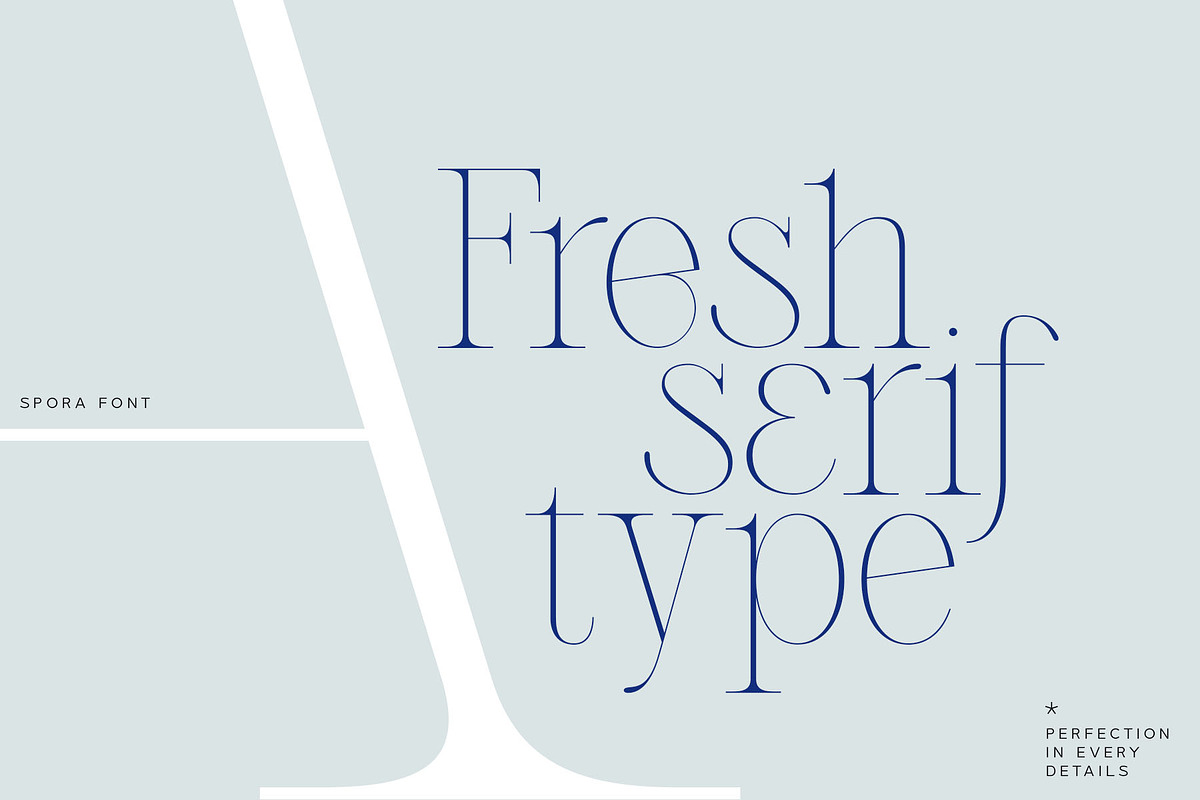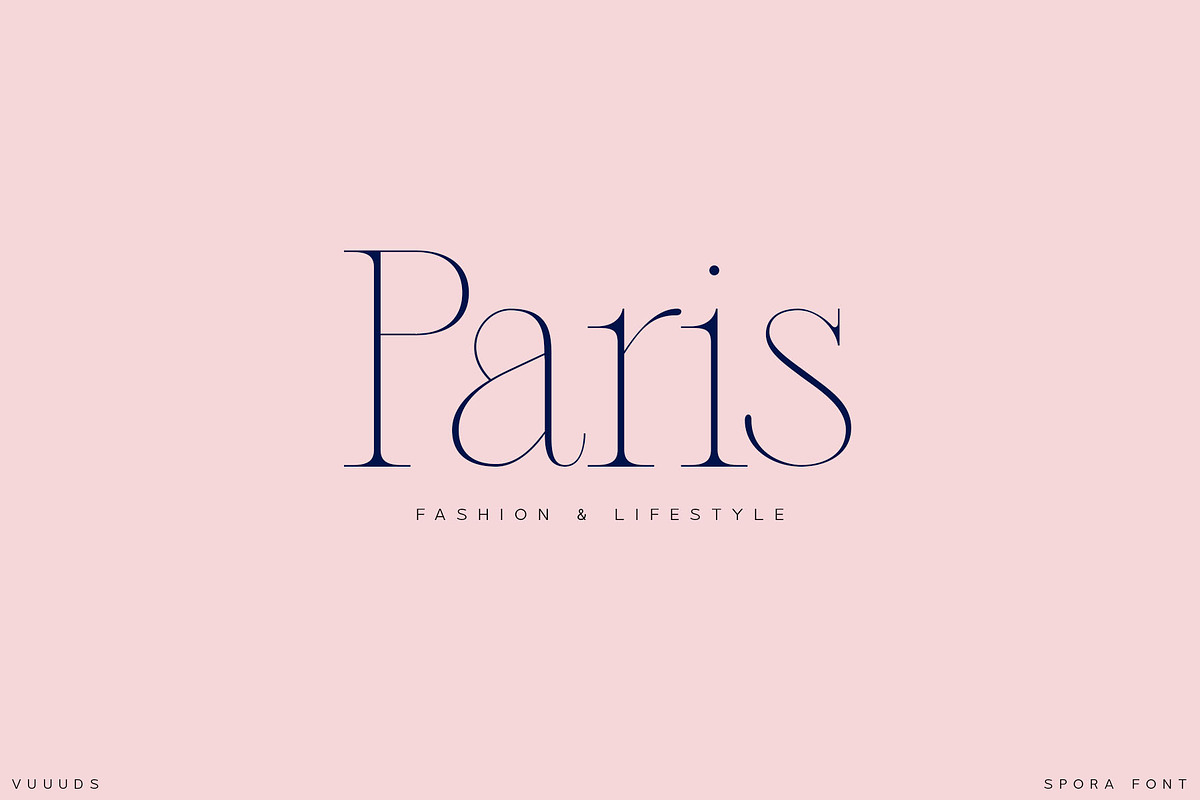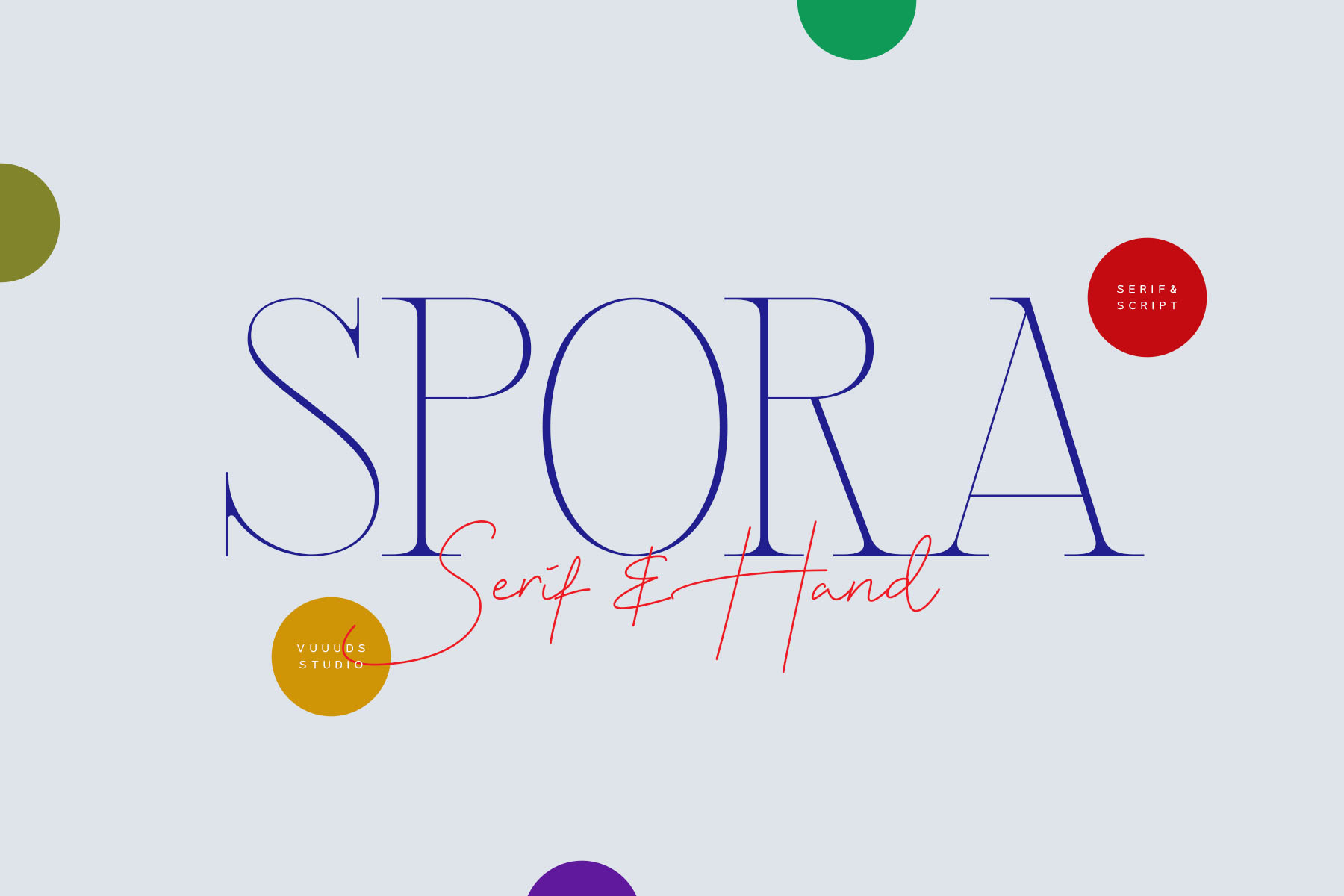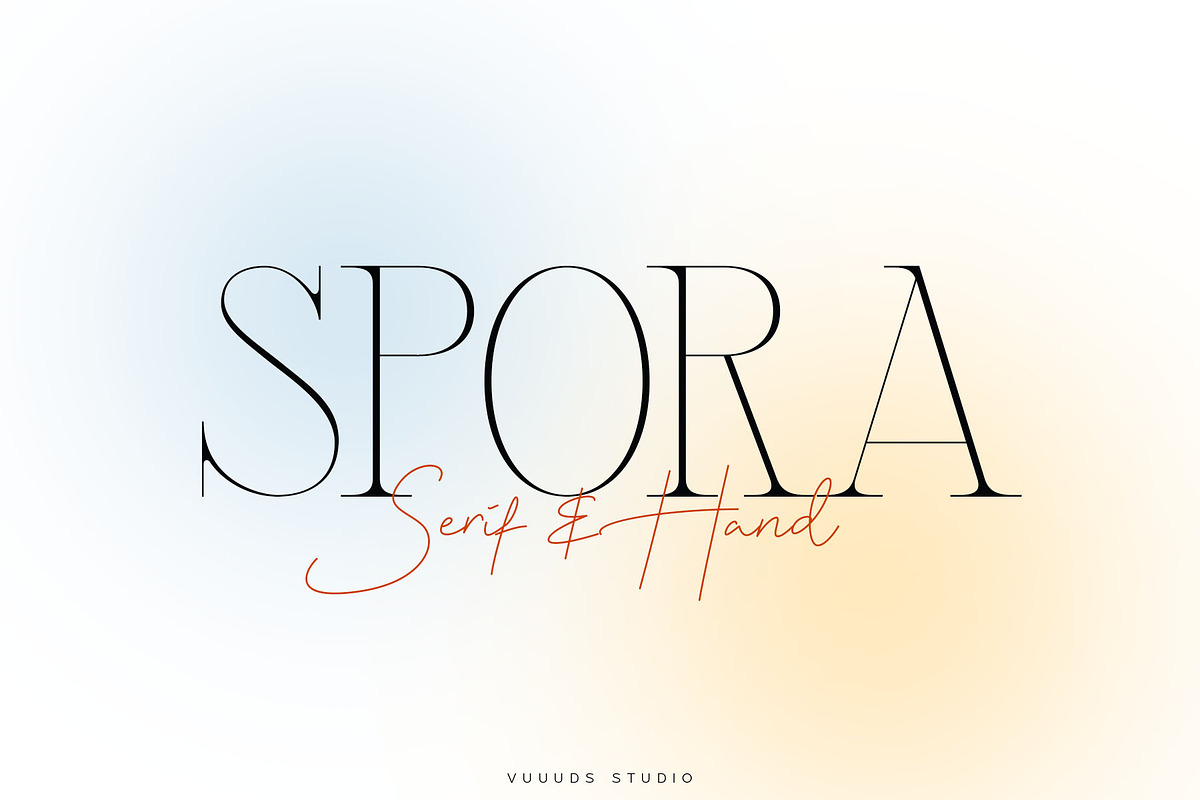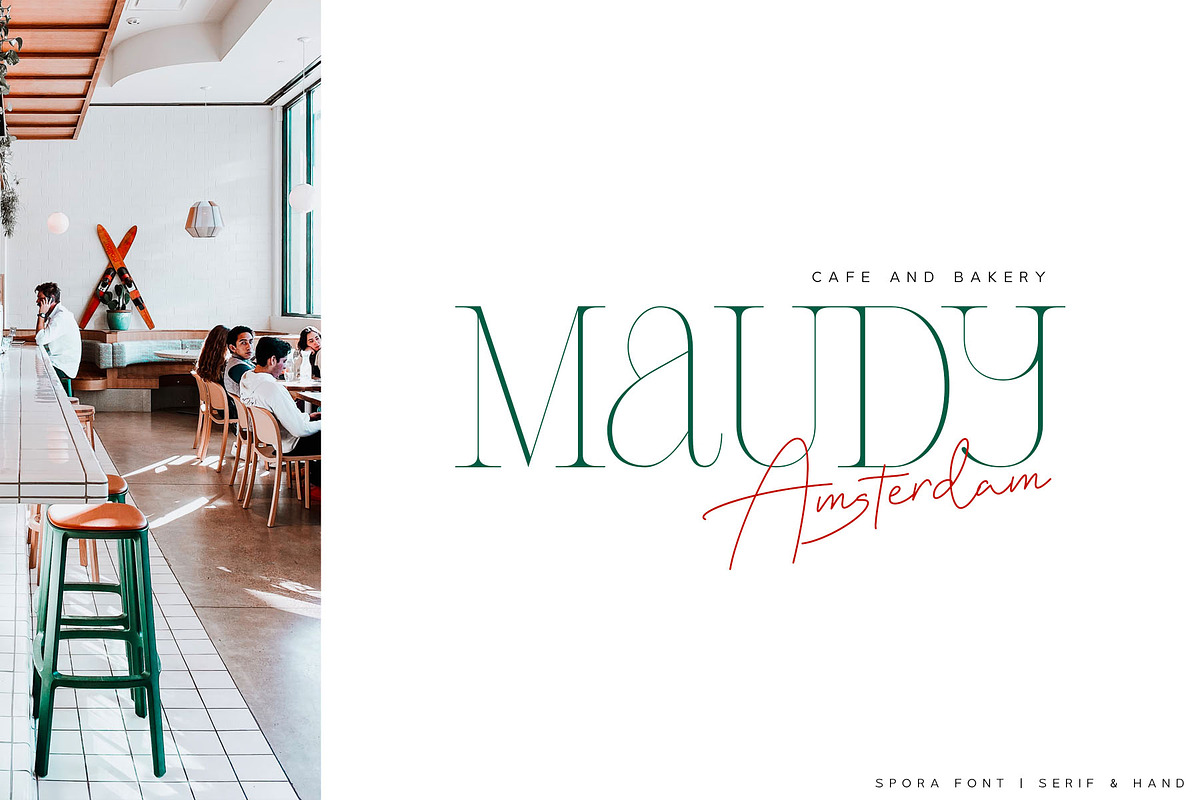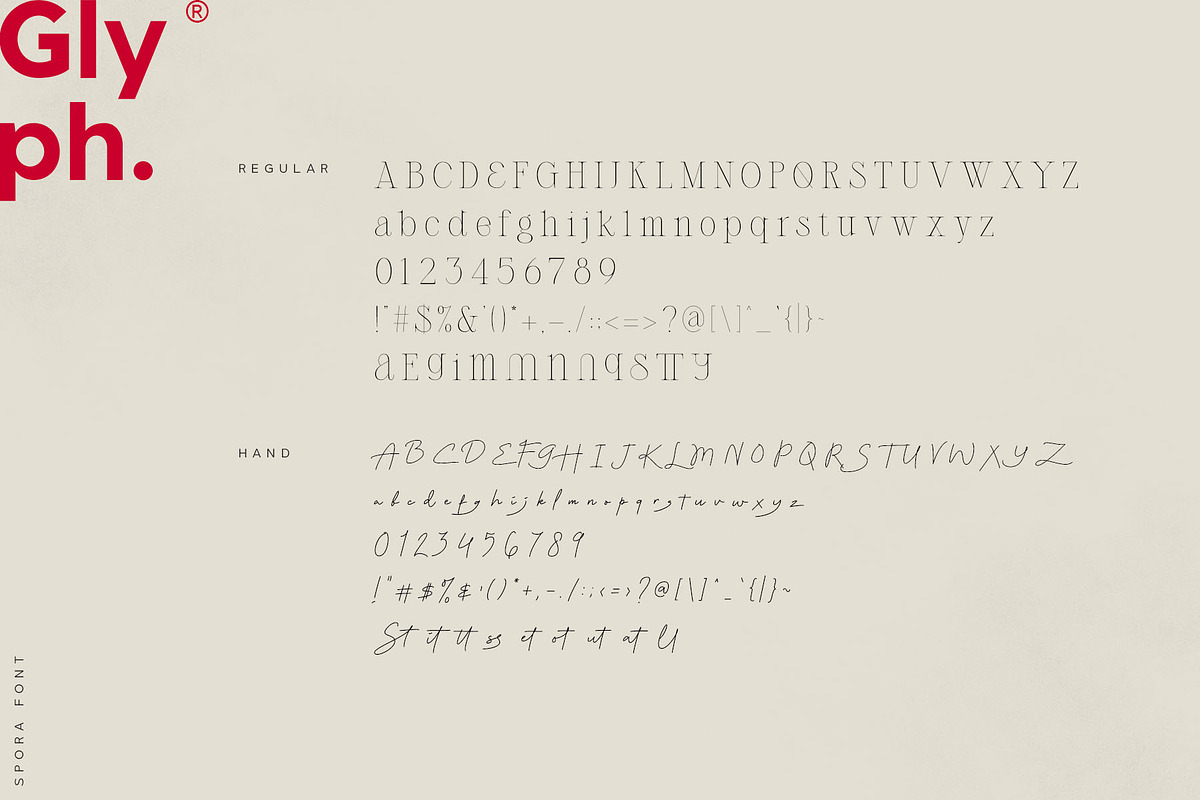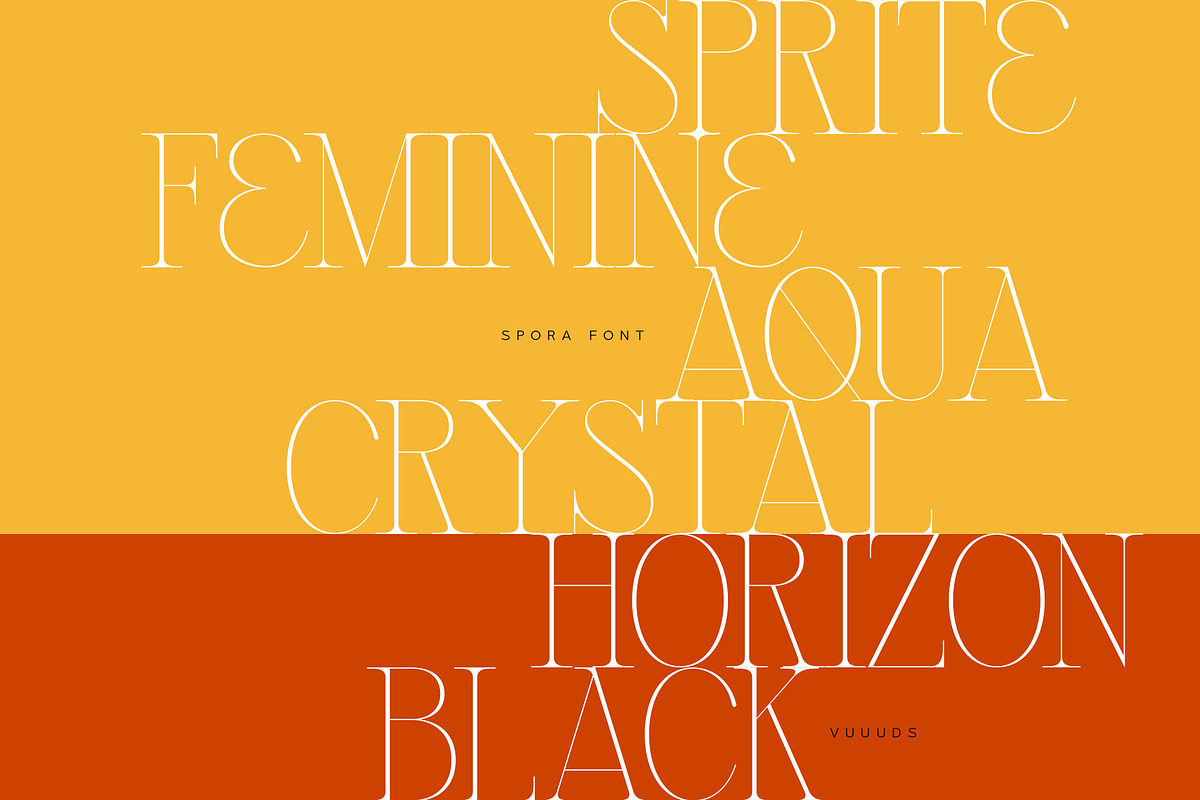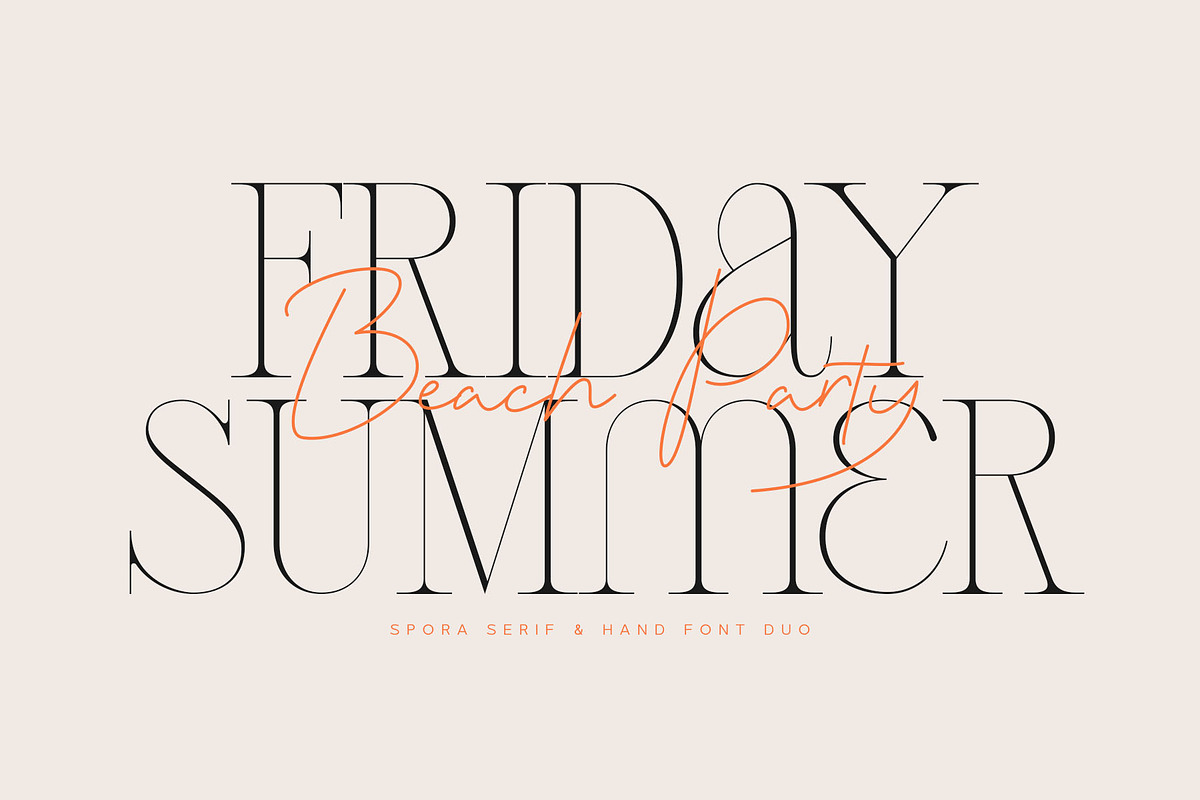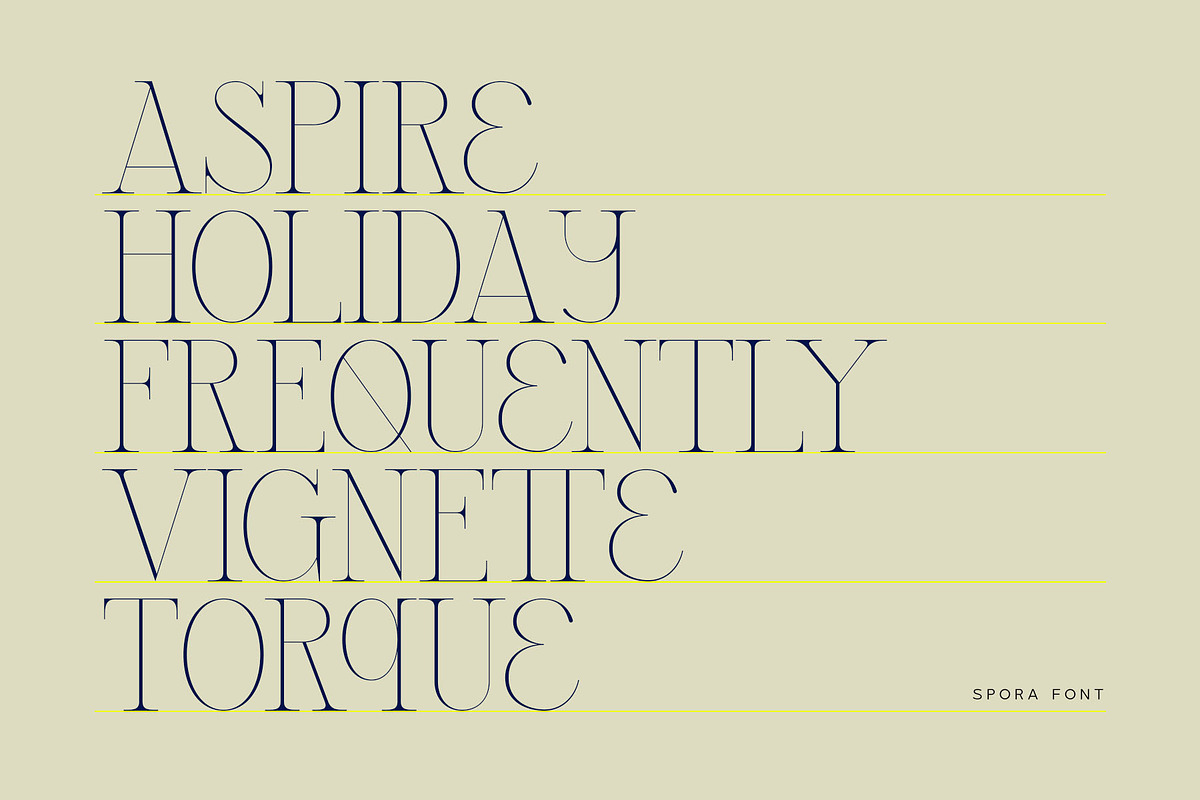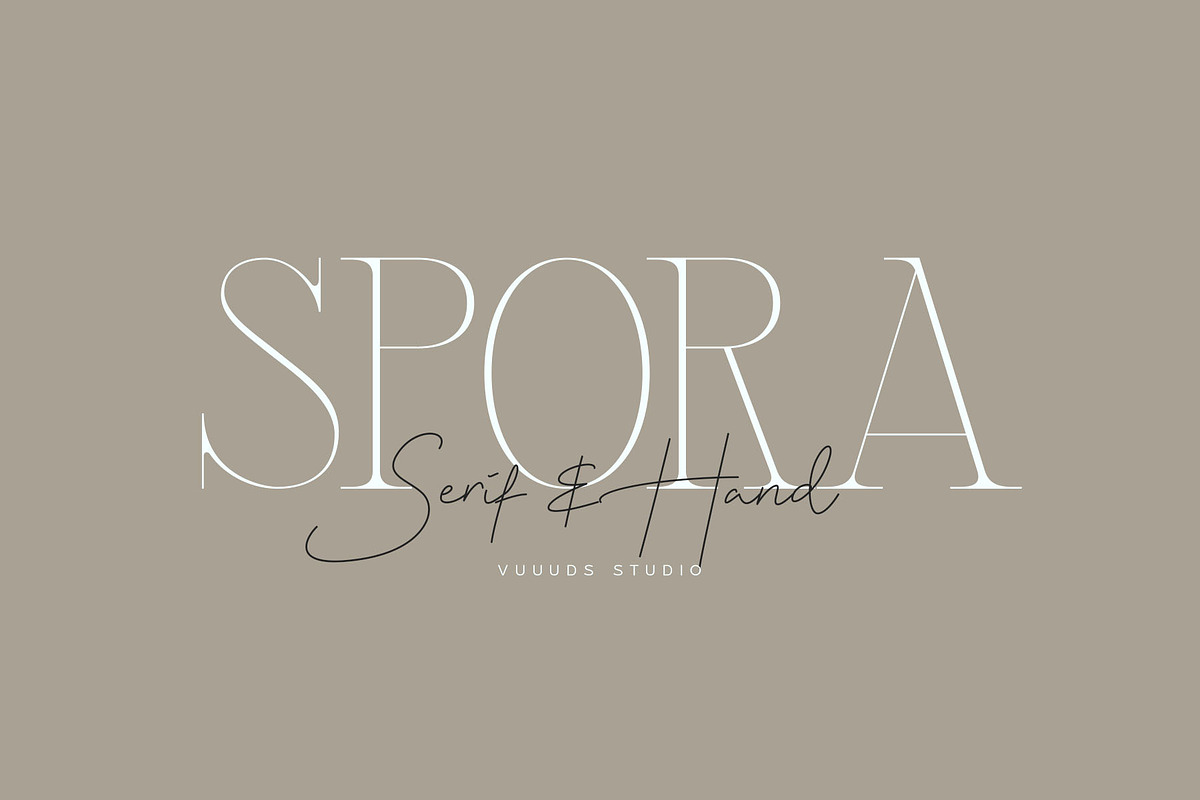
Spora Font Duo
Introducing New Font Duo Spora!
Spora is perfect font duo with two different character. Both fonts complete each other and works perfect together, make your text looks beautiful. With modern script style this font will perfect for many different project ex: Instagram post, signature logo, watermark, quote, blog header, poster, wedding, branding, logo, fashion, apparel, letter, invitation, stationery, etc.
Spora font foreign languages support: ÀÁÂÃÄÅÆÇÈÉÊËÌÍÎÏÐÑÒÓÔÕÖØÙÚÛÜÝàáâãäåæçèéêëìíîïðñòóôõöøùúûüýÿ